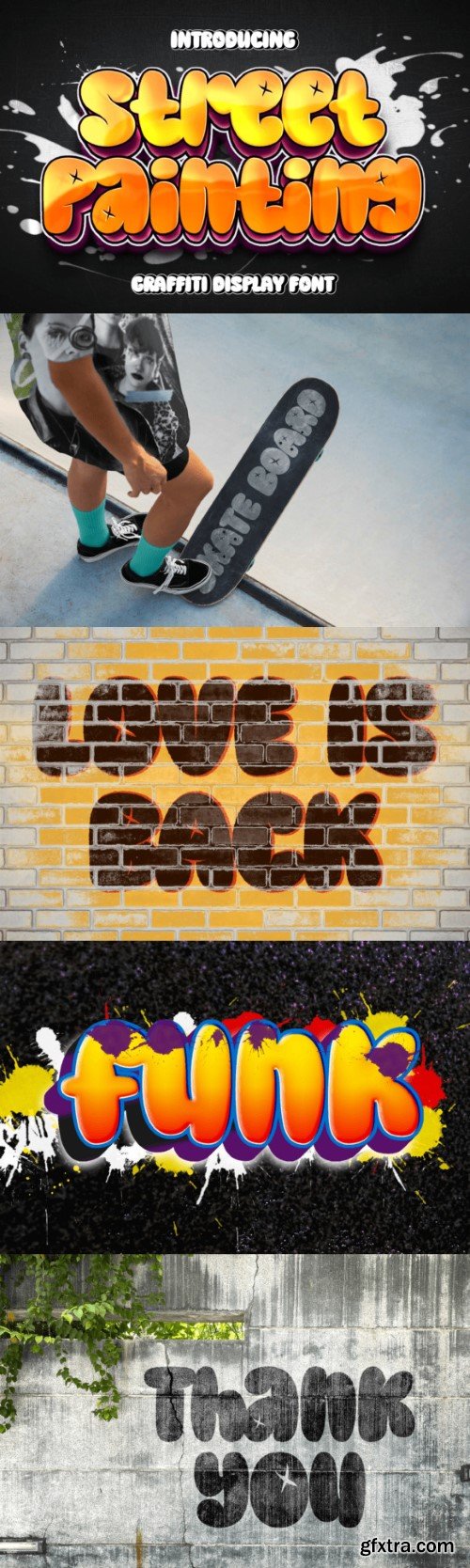
街头涂鸦字体
Street Painting is a bold and edgy graffiti-style font that brings urban flair to your designs. With its expressive strokes and urban vibe, this font adds a raw and dynamic energy to any project. Whether you’re creating posters, logos, or street art-inspired designs, Street Painting captures the essence of the streets with its gritty charm. Let your creativity shine and make a statement with this eye-catching display font.